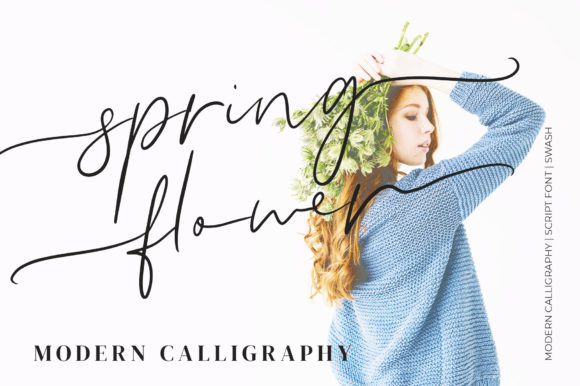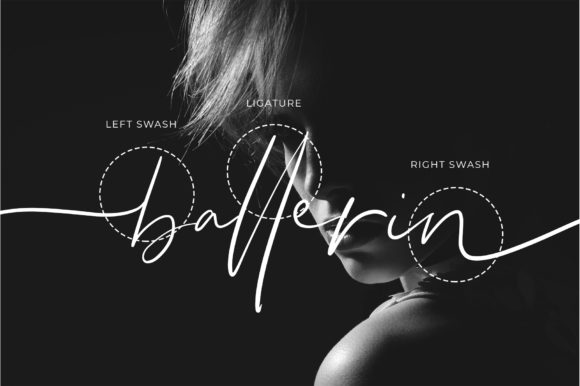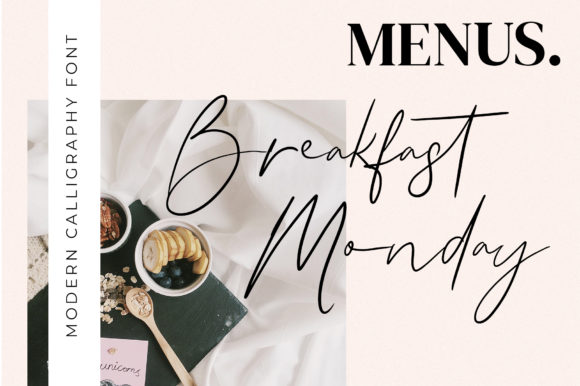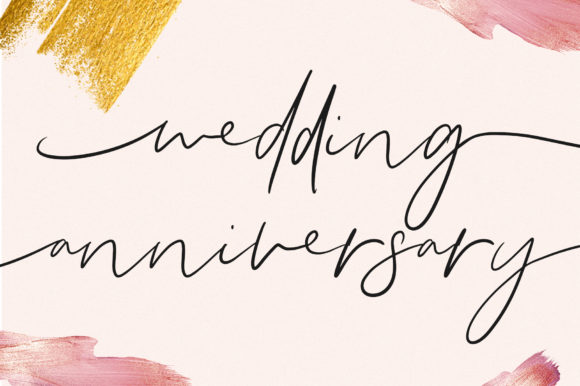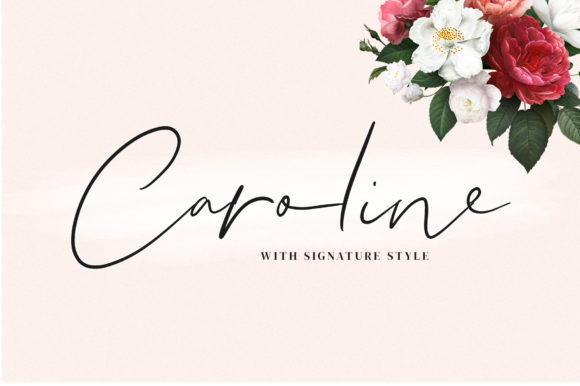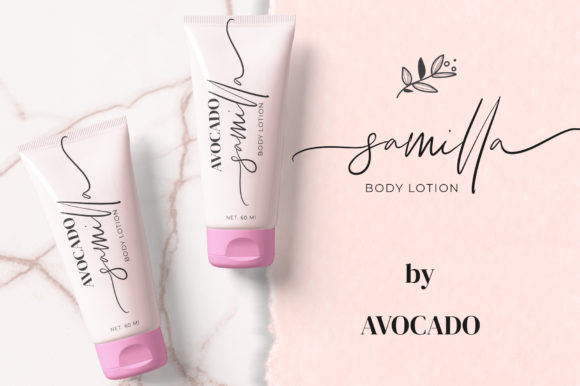
Discover the Elegance of Girl Passion Font: A Beautiful Script Inspired by Classic Calligraphy
In the world of typography, few fonts capture the essence of elegance and sophistication as beautifully as the Girl Passion Font. This stunning script font is a masterful blend of traditional calligraphy and modern design, making it a favorite among designers, crafters, and anyone looking to add a touch of class to their projects. In this article, we’ll delve into the world of Girl Passion Font, exploring its origins, features, and uses, as well as provide tips on how to make the most of this gorgeous font.
What is Girl Passion Font?
Girl Passion Font is a beautiful script that pays homage to classic calligraphy. Its elegant strokes, flowing curves, and intricate details make it a standout in the world of typography. This font is perfect for a variety of projects, from wedding invitations and branding materials to digital content and craft projects. Whether you’re a professional designer or a DIY enthusiast, Girl Passion Font is sure to inspire your creativity.
The Inspiration Behind Girl Passion Font
The Girl Passion Font is inspired by the timeless beauty of classic calligraphy. Calligraphy, an art form that dates back to ancient civilizations, is characterized by its flowing strokes, elegant letterforms, and attention to detail. The creators of Girl Passion Font drew inspiration from this rich heritage, infusing their font with the same level of sophistication and elegance that defines traditional calligraphy.
Key Features of Girl Passion Font
So, what makes Girl Passion Font so special? Here are some of its key features:
- Elegant Script**: Girl Passion Font boasts a beautiful, flowing script that is reminiscent of classic calligraphy.
- Intricate Details**: The font features intricate details, including flourishes and swashes, that add to its elegance and sophistication.
- Versatile**: Girl Passion Font is suitable for a wide range of projects, from digital content to print materials.
- Easy to Use**: Despite its intricate details, Girl Passion Font is surprisingly easy to use, making it accessible to designers and crafters of all levels.
Uses of Girl Passion Font
Girl Passion Font is a versatile font that can be used in a variety of projects, including:
- Wedding Invitations**: The font’s elegant script and intricate details make it perfect for wedding invitations, save-the-date cards, and other wedding-related materials.
- Branding Materials**: Girl Passion Font is ideal for branding materials, such as logos, business cards, and letterheads, where a touch of elegance and sophistication is desired.
- Digital Content**: The font can be used in digital content, such as blog posts, social media graphics, and email newsletters, to add a touch of class and sophistication.
- Craft Projects**: Girl Passion Font is also suitable for craft projects, such as scrapbooking, card making, and DIY gifts.
Tips for Using Girl Passion Font
To make the most of Girl Passion Font, here are some tips to keep in mind:
- Pair with Simple Fonts**: Pair Girl Passion Font with simple fonts to create a striking contrast and make your text stand out.
- Use for Headings**: Use Girl Passion Font for headings and titles to add a touch of elegance and sophistication.
- Experiment with Colors**: Experiment with different colors to find the perfect match for your project.
- Pay Attention to Spacing**: Pay attention to spacing and kerning to ensure that your text looks elegant and refined.
Girl Passion Font is a beautiful script font that pays homage to classic calligraphy. Its elegant strokes, flowing curves, and intricate details make it a standout in the world of typography. Whether you’re a designer, crafter, or simply someone who appreciates beautiful typography, Girl Passion Font is sure to inspire your creativity. With its versatility, ease of use, and stunning design, this font is perfect for a wide range of projects, from wedding invitations to digital content. So why not give Girl Passion Font a try and discover the elegance of classic calligraphy for yourself?